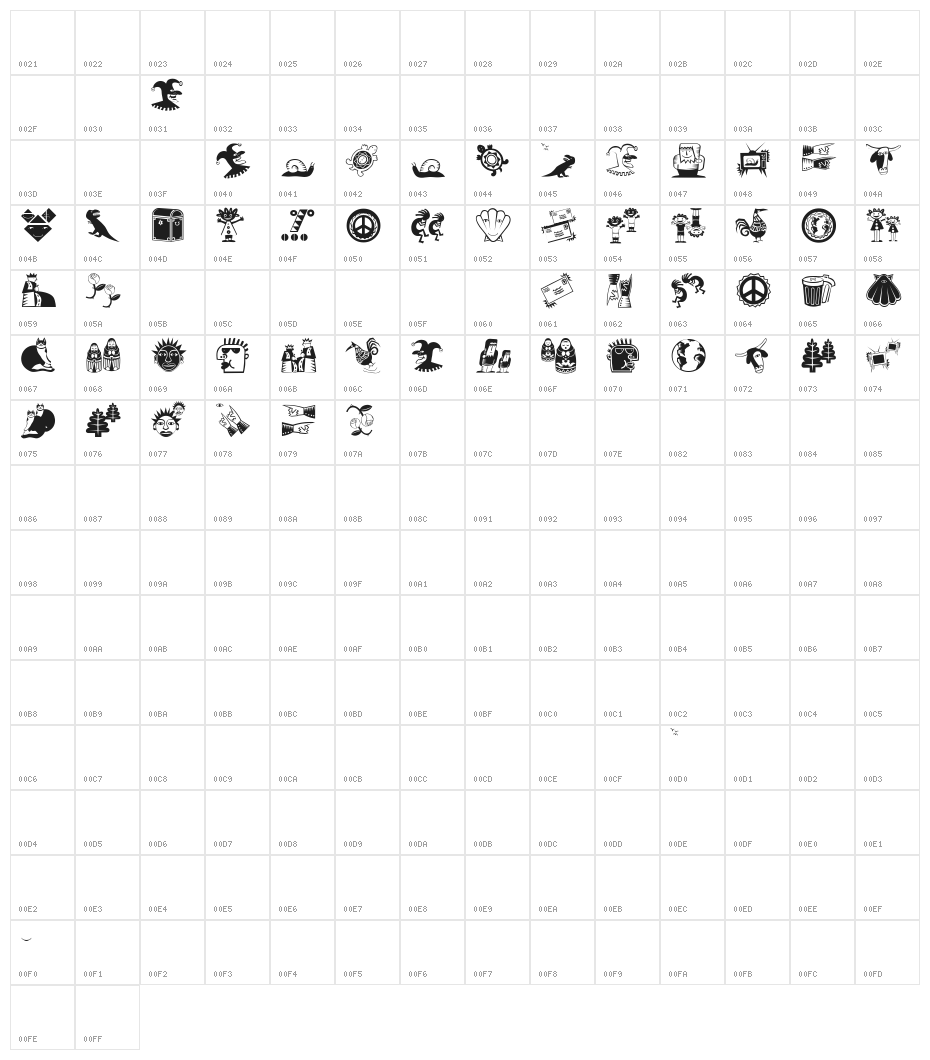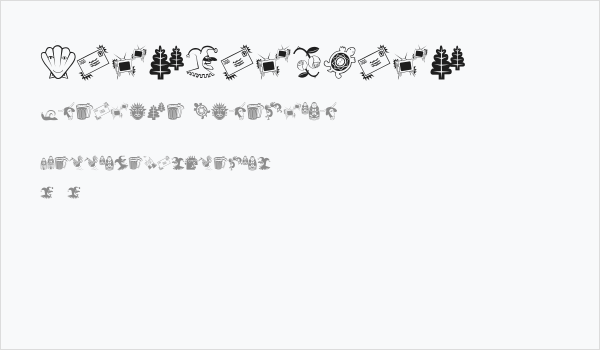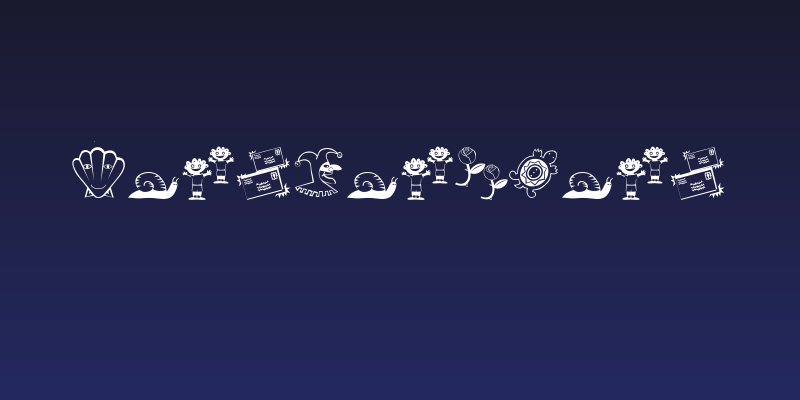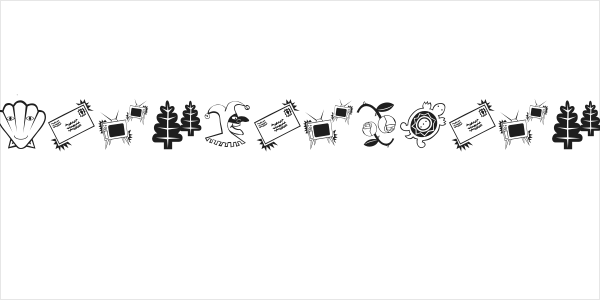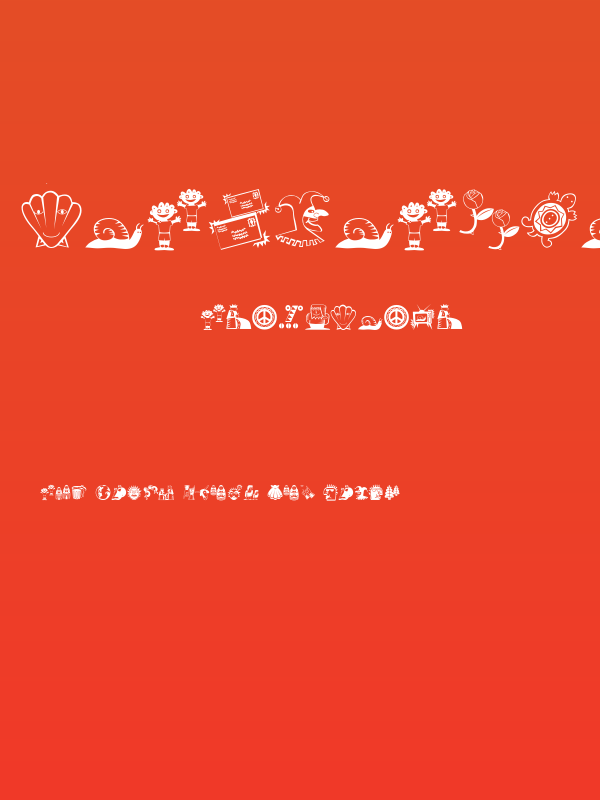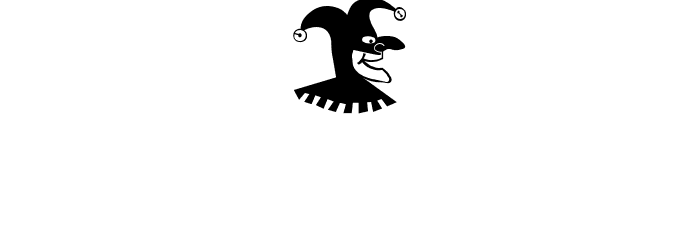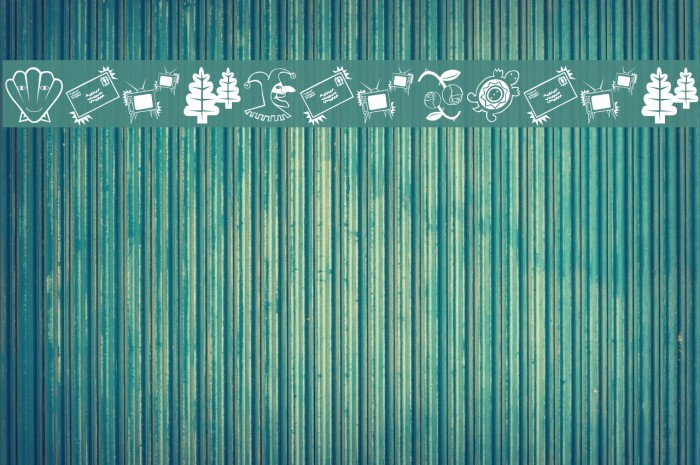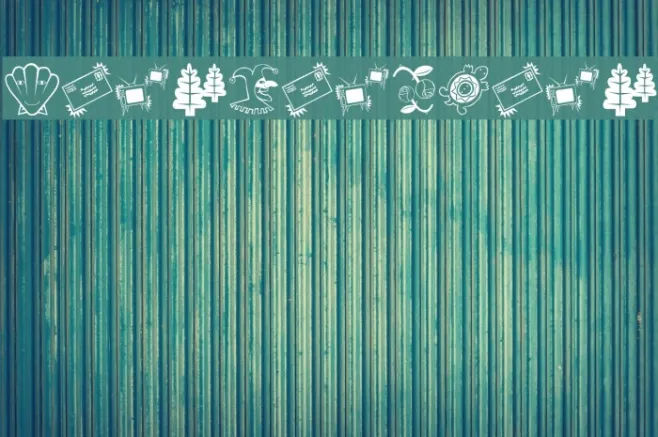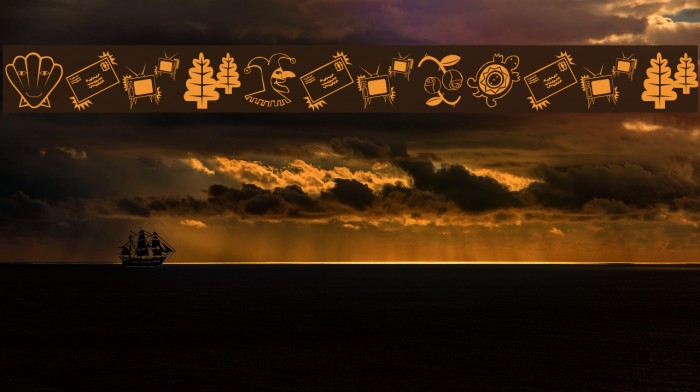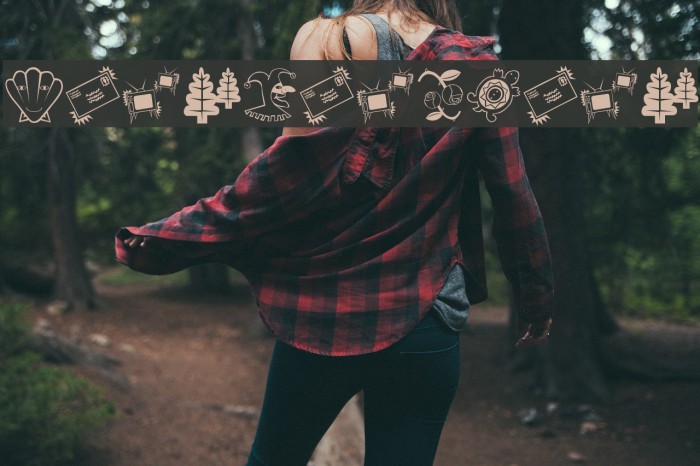
RatsFatzBats Font
RatsFatzBats Description
A highly decorative and whimsical dingbat font composed of playful, cartoon-like illustrations including animals, faces, objects, and abstract shapes, each glyph representing a unique pictogram rather than a traditional letterform.
| Overall Style | Whimsical, Playful, Decorative |
| Use Case | Decorative elements, Icons, Themed graphics, Not suitable for body text |
| Proposed Projects | Children’s books, party invitations, playful branding, educational materials, creative posters, and decorative borders. |